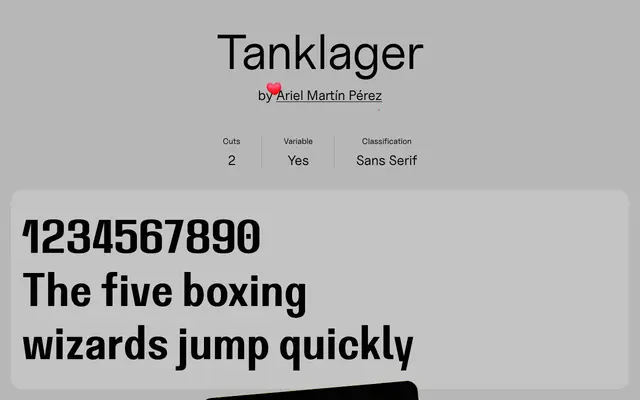
Tanklager
A two-cut sans-serif by Ariel Martín Pérez, available with a variable font option under an open licence for commercial and personal use.
Tanklager is a sans-serif released by Ariel Martín Pérez and distributed through Uncut under the SIL Open Font License 1.1. It comes in two cuts including a variable version, making it adaptable across a range of weights within a single file. The open licence permits commercial use, modification and redistribution with minimal restrictions.
The page classifies Tanklager as Sans Serif; the name and visual form suggest a constructed, possibly geometric or industrial grotesque character.